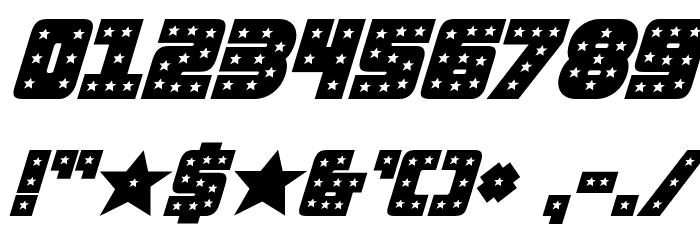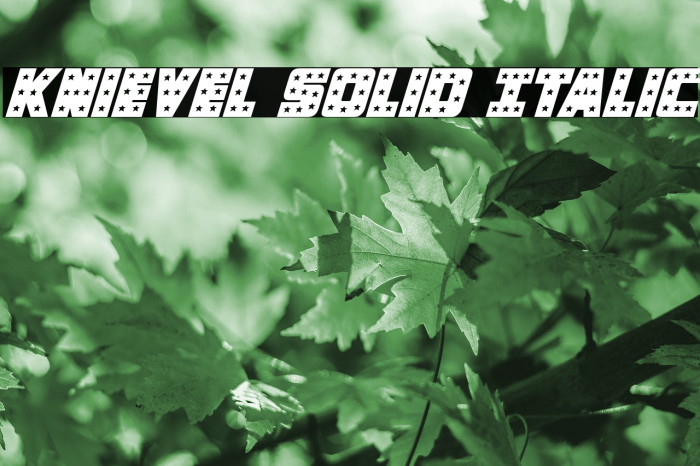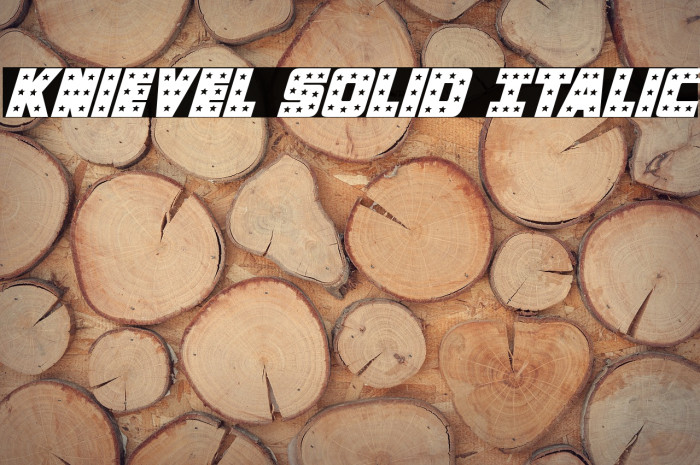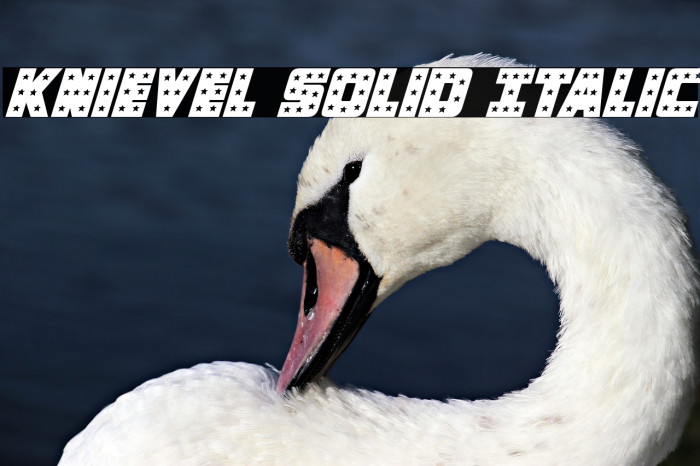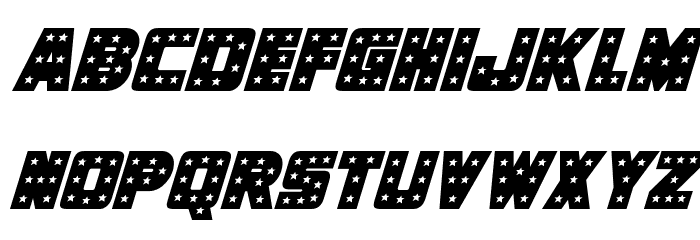
Knievel Solid Italic Font
This font features a bold and dynamic design with a solid, italicized structure. Each character is filled with a pattern of stars, giving it a unique and eye-catching appearance. The letters are slanted, adding a sense of motion and energy, which is further emphasized by the bold weight. The font's playful and decorative style makes it stand out, ideal for projects that require a strong visual impact. The character spacing is normal, allowing for readability despite the intricate design. The high contrast between the solid letterforms and the star patterns enhances its decorative appeal.
A bold, star-patterned italic font with a dynamic and decorative style.
• Proposed Projects: Ideal for posters, event flyers, branding projects, and any design requiring a bold, eye-catching typeface.
• Category: Decorative/Display
• Bold: Yes
• Italic: Yes
• Weight: Bold
• Width: Normal
• Character Spacing: Normal
• Contrast: High
• Overall Style: Decorative
• Use Case: Headlines, Logos